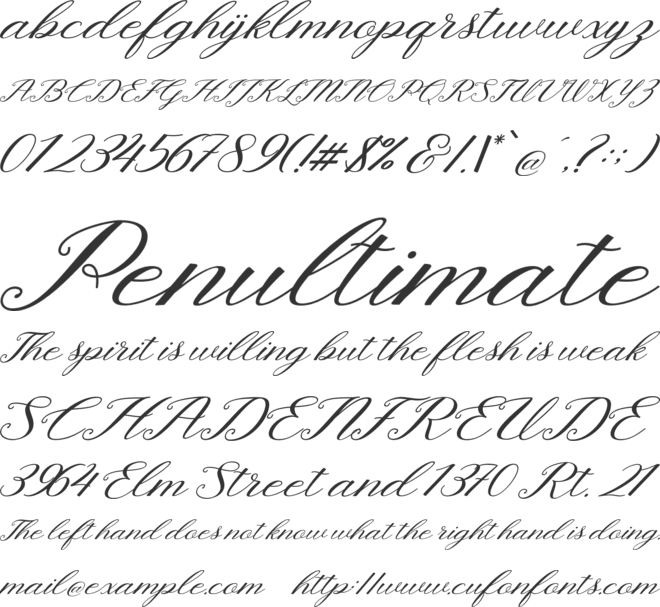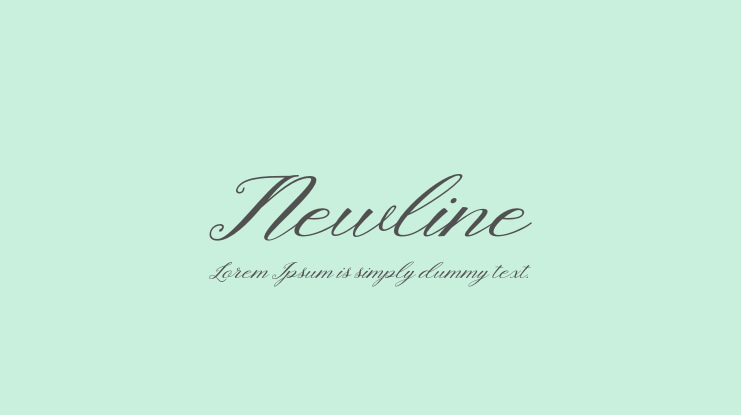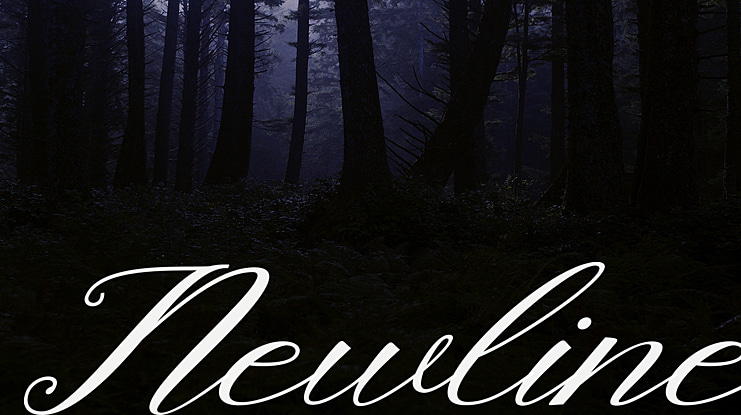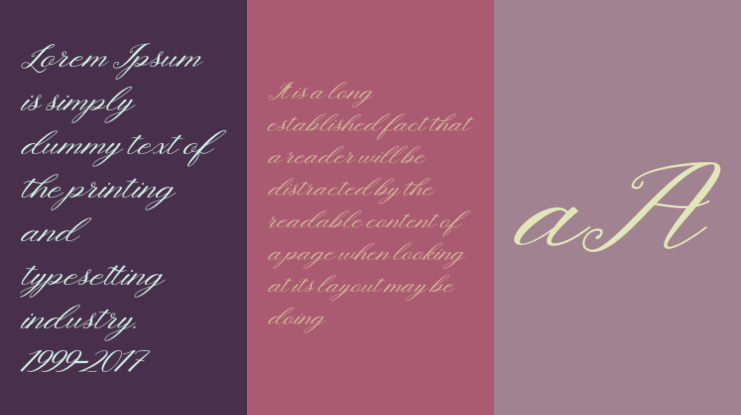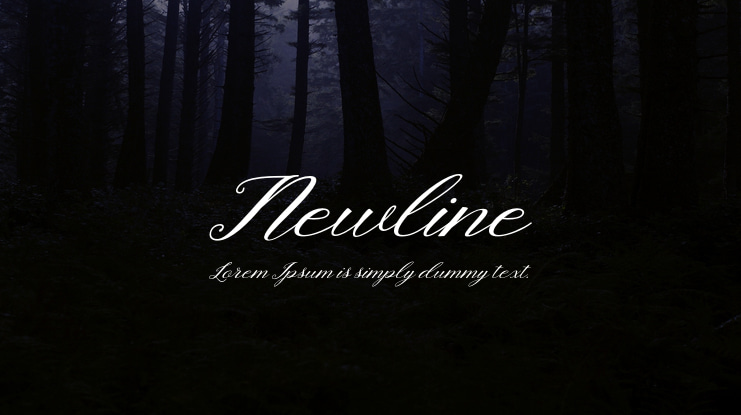
Newline Font
Newline Elegant Handwritten Type Font. A collection of letters and numbers suitable your projects also great for Logotype, Branding Design, Logo Design, Digital Lettering Arts, T-Shirt/Apparel, Poster, Magazine, Signs, Advertising Design, and any design needs.Click our website :https://staircaselab.com/product/newline/